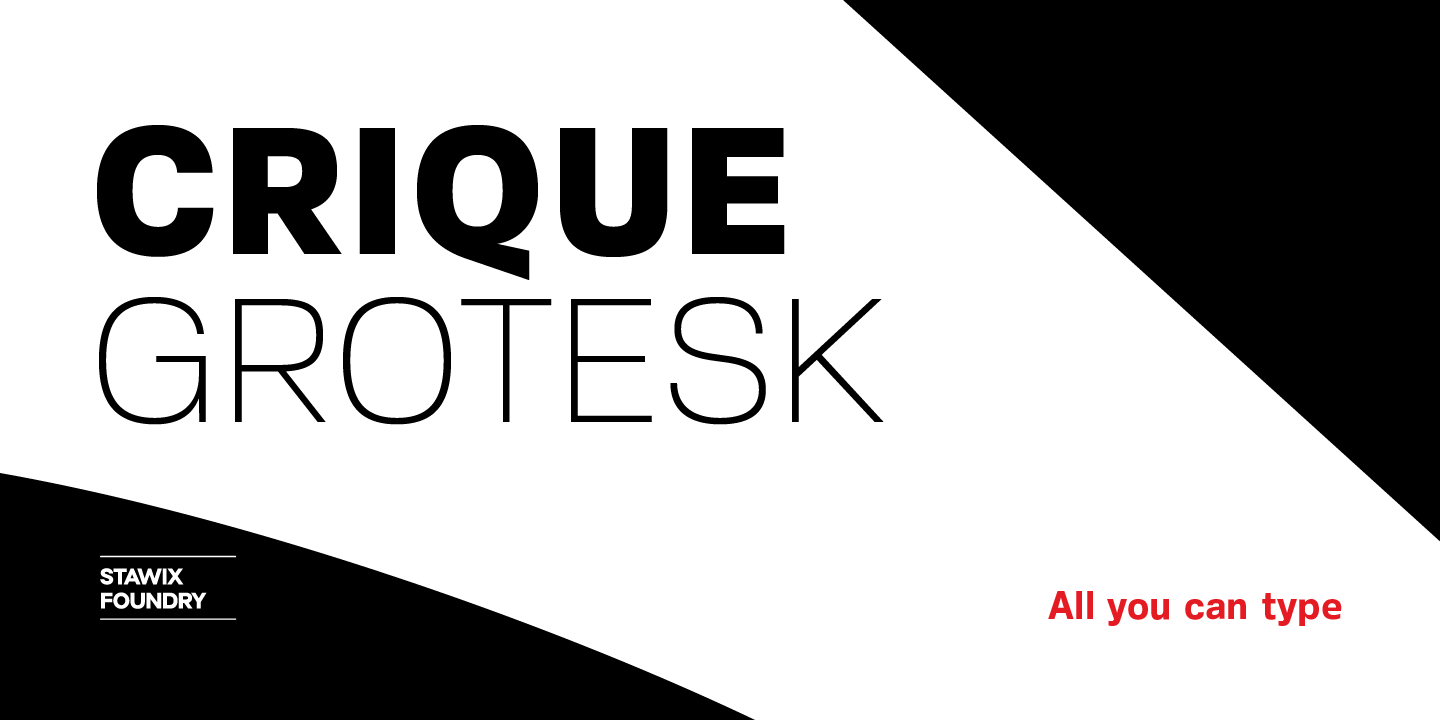
Crique Grotesk Font is a strikingly modern and highly versatile sans-serif typeface, perfect for designs that aim to convey a sense of contemporary sophistication, technical precision, and minimalist elegance. Its clean lines, balanced proportions, and robust construction make it an excellent choice for corporate branding, digital interfaces (UI/UX), editorial design for modern publications, and architectural firm portfolios. Imagine it providing sleek readability for a tech startup's dashboard, adding a refined yet approachable feel to corporate communications, or ensuring impeccable clarity for educational platforms. This font is also superb for annual reports, apparel branding for minimalist fashion lines, and any project where clarity, efficiency, and a forward-thinking visual identity are key. It doesn't just display text; it enhances your message with an understated confidence and contemporary flair.
What makes Crique Grotesk Font so exciting is its remarkable ability to blend geometric precision with a subtle humanistic touch, ensuring both aesthetic appeal and outstanding readability across various applications. It possesses a contemporary charm that feels both robust and airy, making it incredibly versatile for a wide range of uses, from prominent headlines to detailed body text. This unique combination allows designers to create visually compelling content that is highly functional and effortlessly modern. It’s a font that speaks with a clear, confident voice, making it ideal for brands and content creators who want to convey reliability, innovation, and a sophisticated, no-fuss aesthetic. Its balanced appeal can make any design feel more cohesive and professional.
The Crique Grotesk Font family typically offers a comprehensive range of weights and styles to provide extensive design flexibility and allow for nuanced typographic expressions. While the exact variations can differ based on the specific design, you can generally expect to find key members that support diverse layout needs, such as:
• Crique Grotesk Thin
• Crique Grotesk Light
• Crique Grotesk Regular
• Crique Grotesk Medium
• Crique Grotesk SemiBold
• Crique Grotesk Bold
• Crique Grotesk ExtraBold
• Crique Grotesk Black
• Crique Grotesk Italic (for most, if not all, weights)
• Crique Grotesk Condensed (if available, for space-saving applications)
• Crique Grotesk Extended (if available, for wider display)